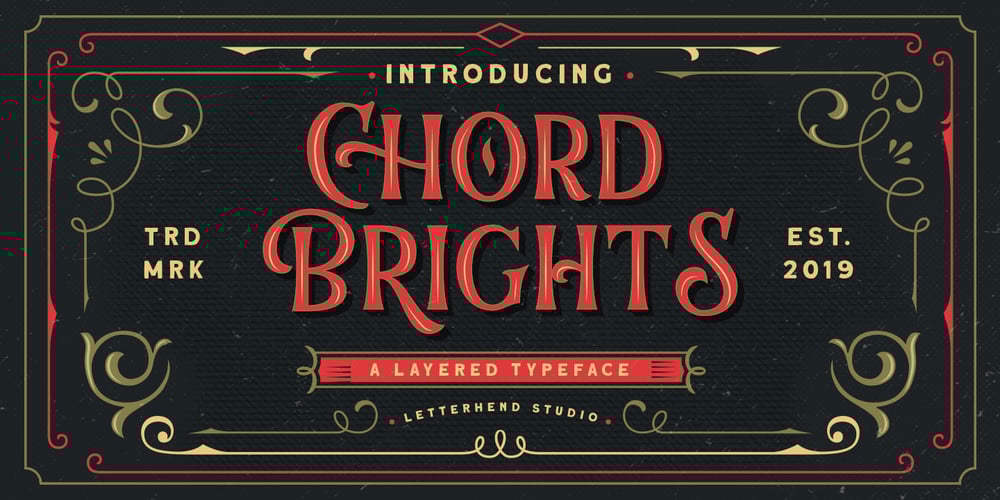
Chord Brights
Chord Brights font
Chord Brights Font Family was designed by Hendry Juanda and published by Letterhend. Chord Brights contains 4 styles and family package options. Introducing, Chord Brights, a one of a kind layered typeface with 4 styles (Regular, Extrude, Outline, Inline). This typeface has a nostalgic feel because of its style, so the font is really a match for your project with a retro/vintage theme.Chord Brights is perfectly made to be applied especially in logos, invitations, labels, logos, magazines, books, greeting/wedding cards, packaging, fashion, make up, stationery, novels, labels or any type of advertising purpose.Features : uppercase & lowercase numbers and punctuation multilingual ligatures alternates swashes PUA encoded contextual alternate We highly recommend using a program that supports OpenType features and Glyphs panels like many of Adobe apps and Corel Draw, so you can see and access all Glyph variations.Email us to letterhend@gmail.com if you need something! Happy Designing!